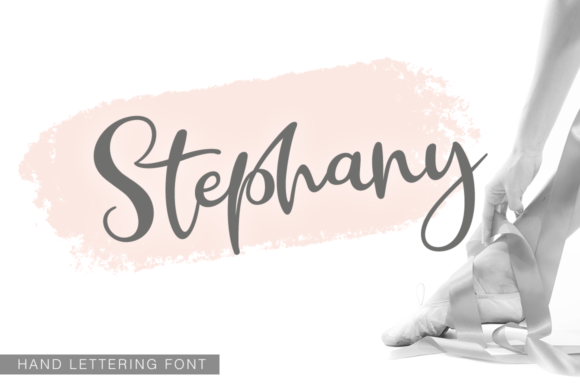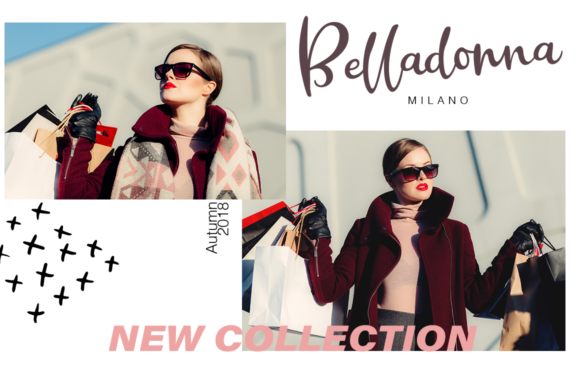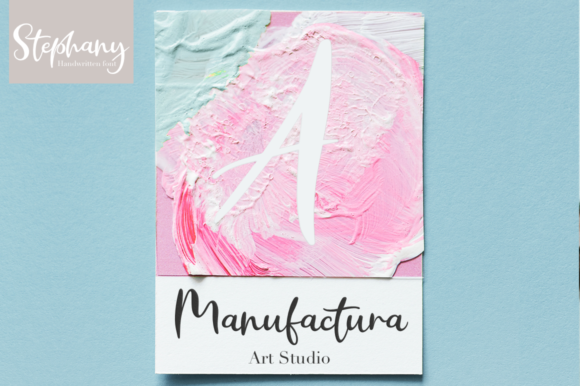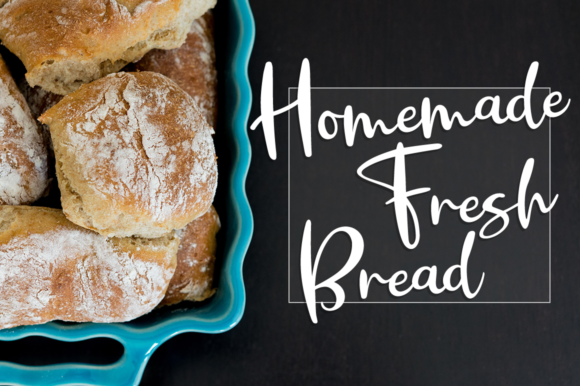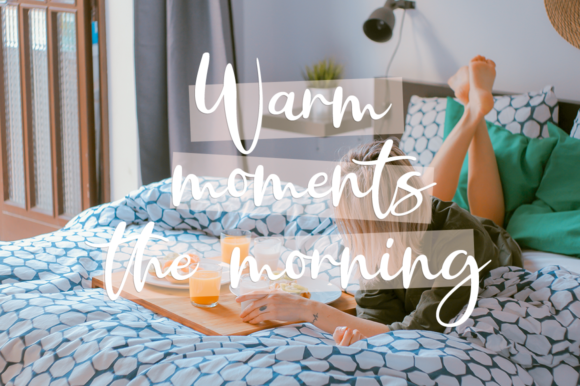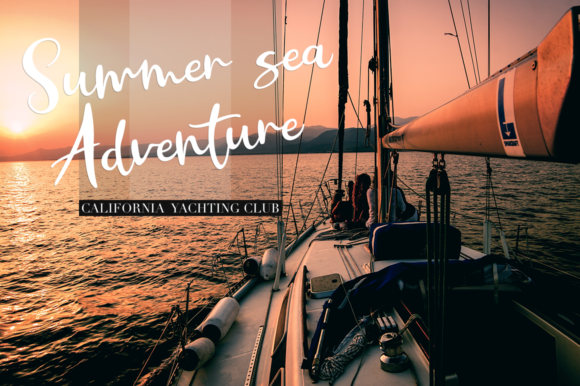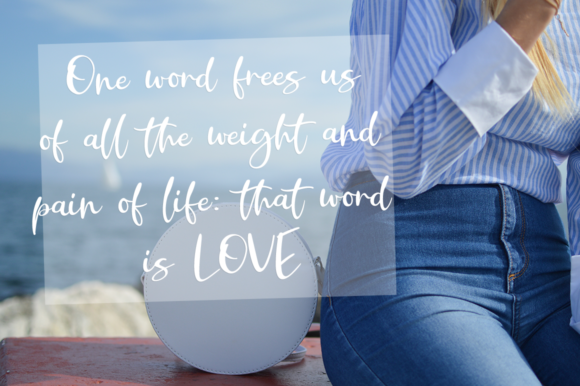
Stephany Font
About Stephany Font
Stephany script is a fresh, handmade font.
The Stephany Script is ideal for branding and decorating any project. It’s perfect for weddings and comes packed with ligatures.